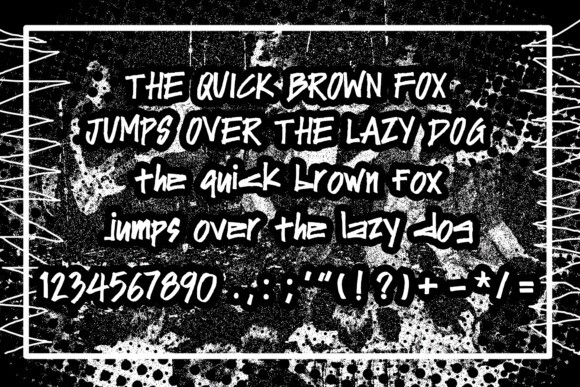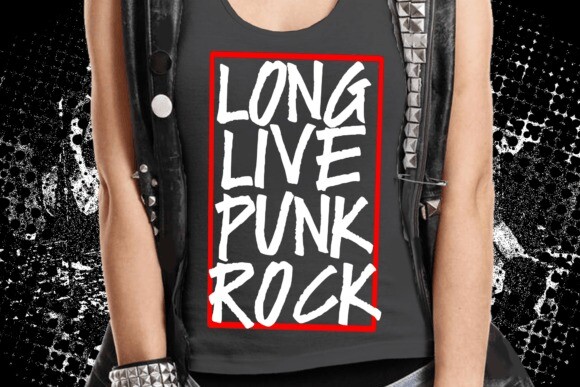
Rebel Gang Riot Font
Rebel Gang Riot Font is a cool spontaneous handwritten font, inspired by quick graffiti tags writing, street art, and punk rock music. It will elevate a wide range of design projects to the highest level. You can use this font for many design ideas such as stickers, t-shirt designs, amazing logo designs, magazine or book covers, comics, cartoon drawings, and many more. This font will add a cool touch to your designs!